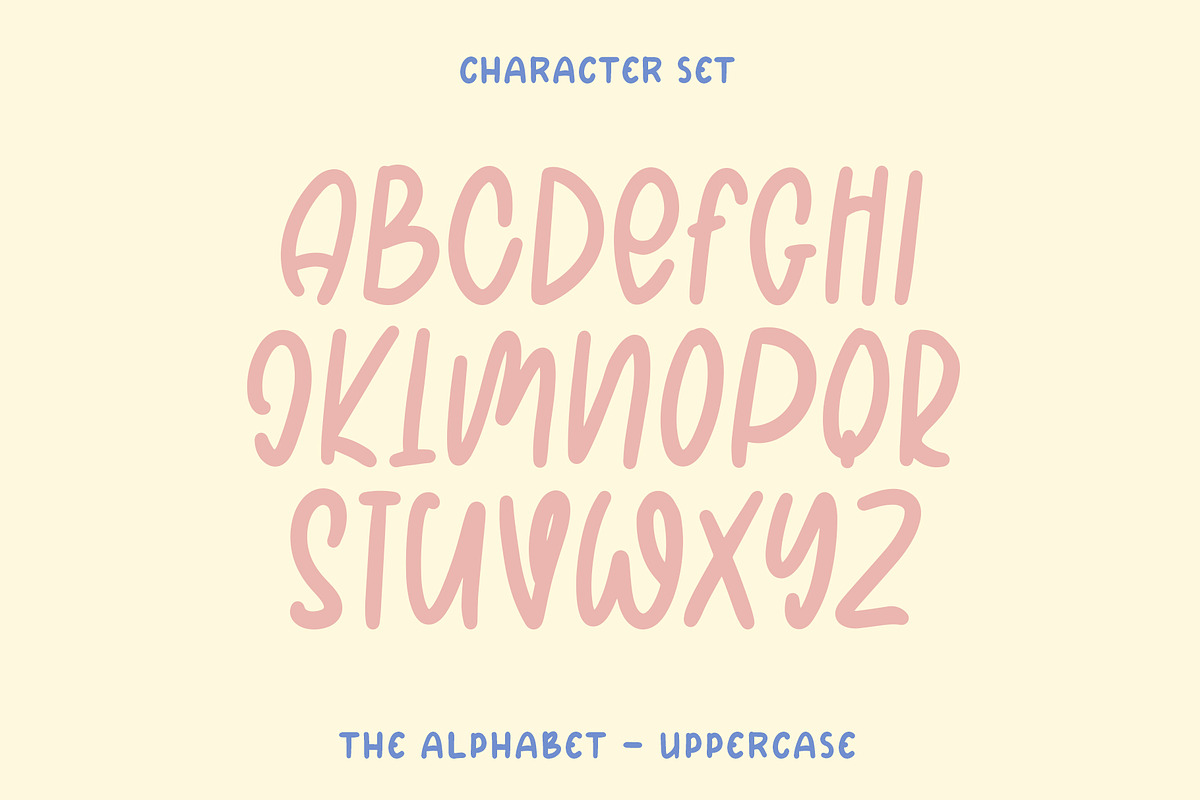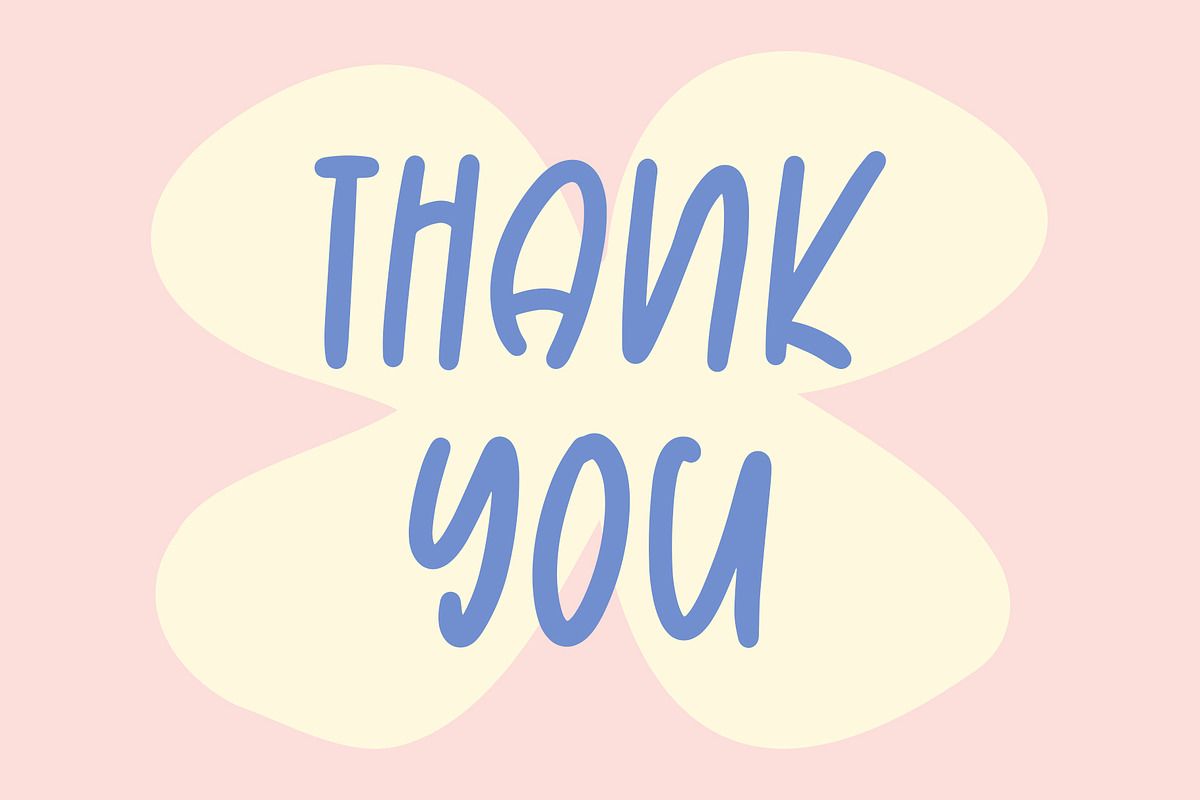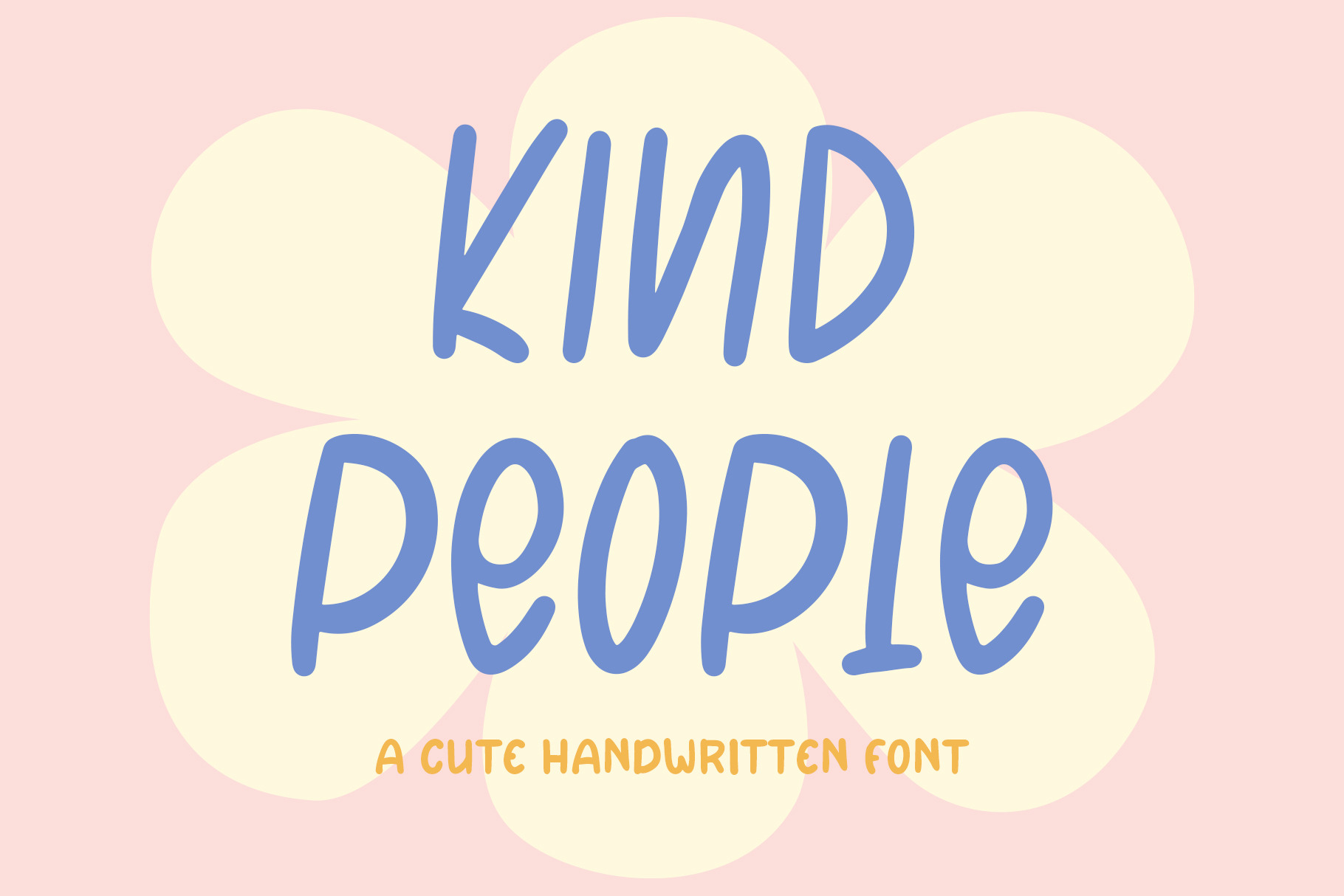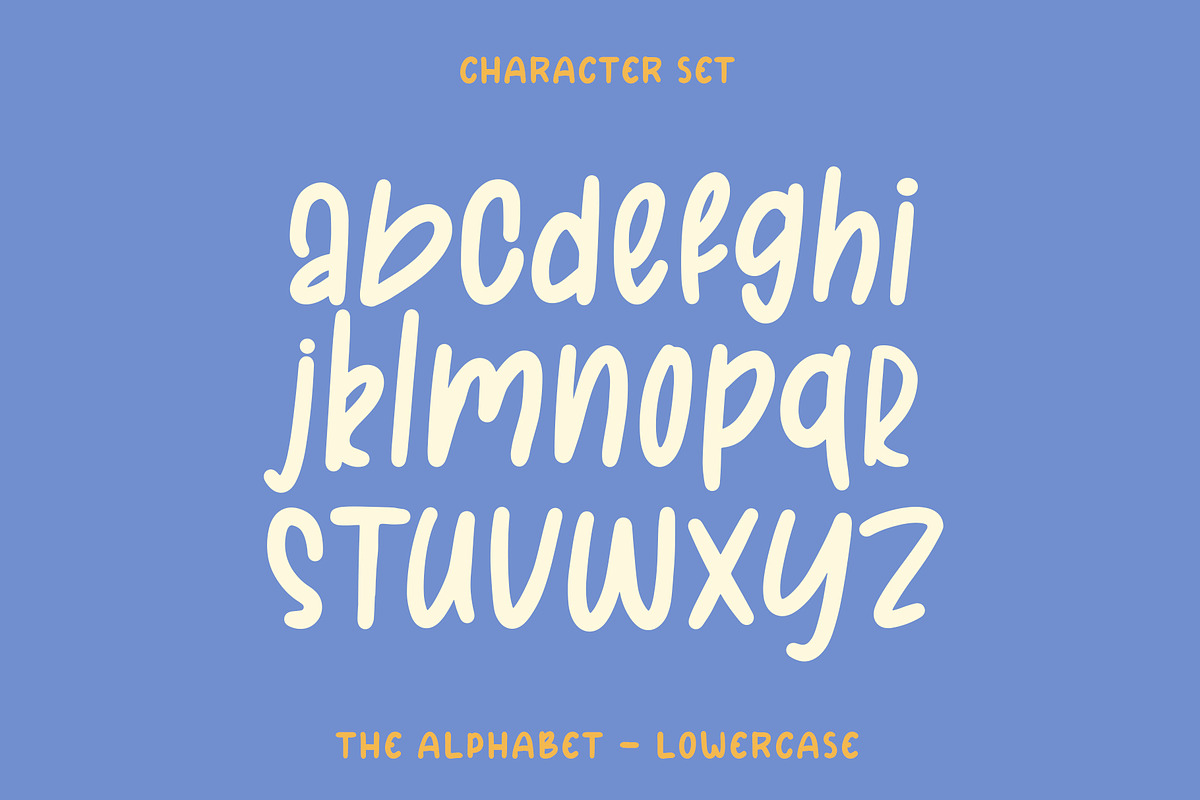
Kind People - Handwriting Font
Kind People is a delightful and charming handwritten font that effortlessly captures the essence of warmth and friendliness. . This typeface available in SVG format, compatible with advanced tools such as Cricut and Glowforge, and for use in Procreate. This cute handwriting font is meticulously crafted, featuring soft, rounded edges and playful strokes that give each character a whimsical and endearing quality. The fluidity of the script creates a natural and approachable feel, making it perfect for a variety of creative projects such as greeting cards, invitations, children's books, and social media graphics.